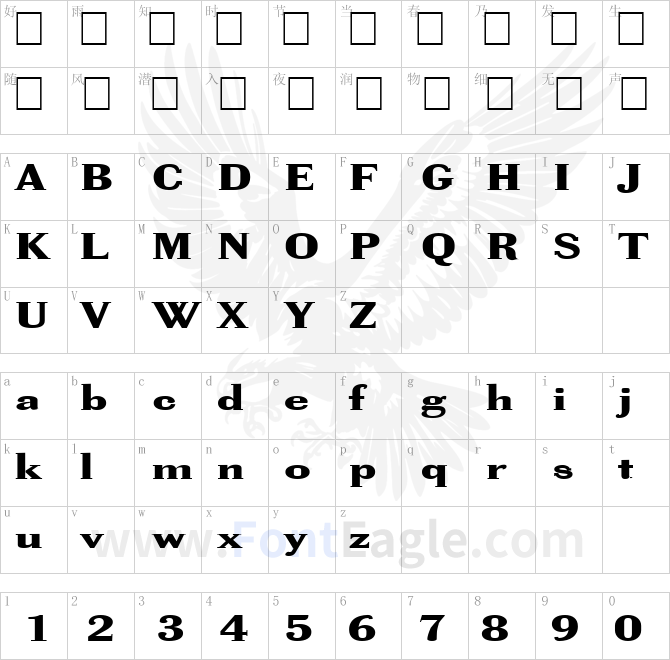
- Font name:FZ ROMAN 40 EX
FZ-ROMAN-40-EX is a great font, widely used in graphic design, single-page menu design, poster design and other fields, and is deeply loved by designers.FZ-ROMAN-40-EX download.